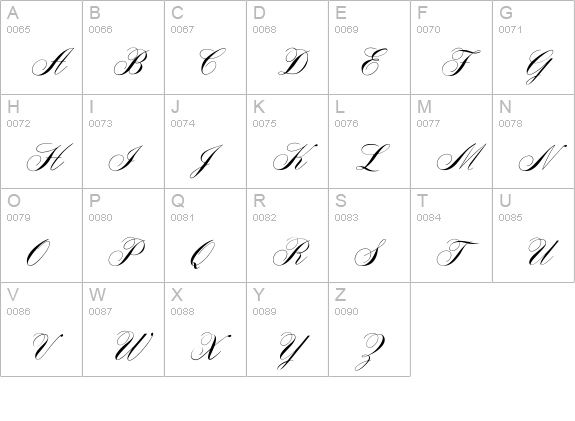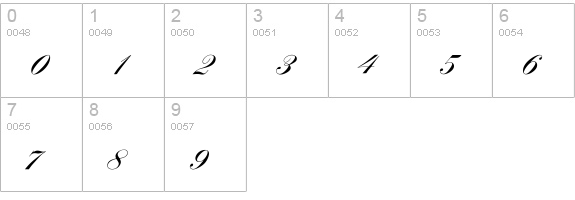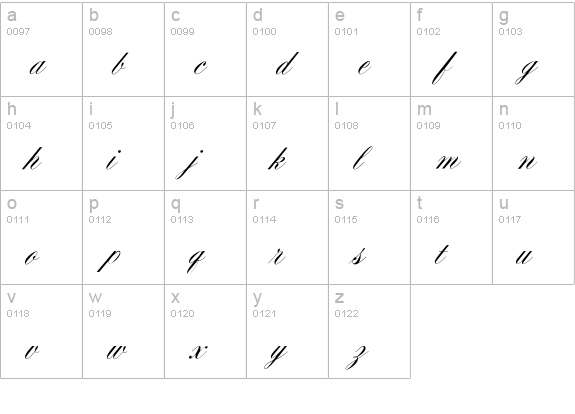
OPTIYale-ScriptSuppl Font Details
OPTIYale-ScriptSuppl font is a stunning typeface that exudes elegance and sophistication. With its graceful cursive style and intricate details, this font is perfect for adding a touch of class to any design project. Whether you're creating wedding invitations, branding materials, or elegant signage, OPTIYale-ScriptSuppl will elevate your work to the next level. The best part is that OPTIYale-ScriptSuppl font is completely free to download. You can easily access this beautiful font at FontsMarket.com and start using it in your projects right away. Don't miss out on this fantastic opportunity to add a touch of luxury to your designs with OPTIYale-ScriptSuppl font. Download it now and let your creativity shine!